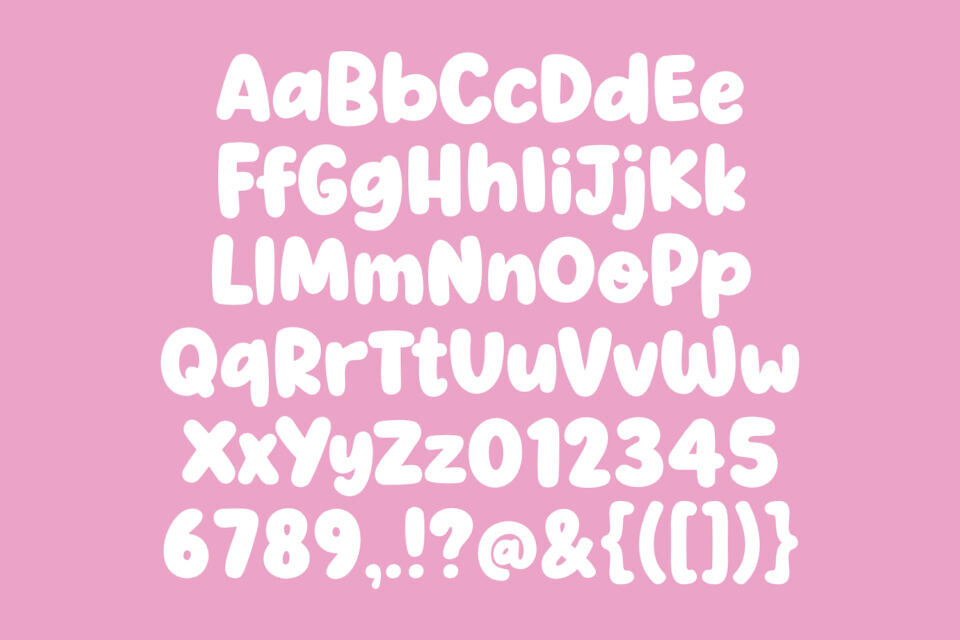
Super Joyful font is a friendly, hand-drawn display typeface with rounded, bubble-like letterforms. Its soft, inflated appearance and gentle curves convey a playful and cheerful aesthetic.
Super Joyful is perfect for a wide range of creative applications, including branding, children’s products, and merchandise, where a whimsical and approachable style is desired. Its consistent, smooth strokes ensure high readability while maintaining a fun and unique character.